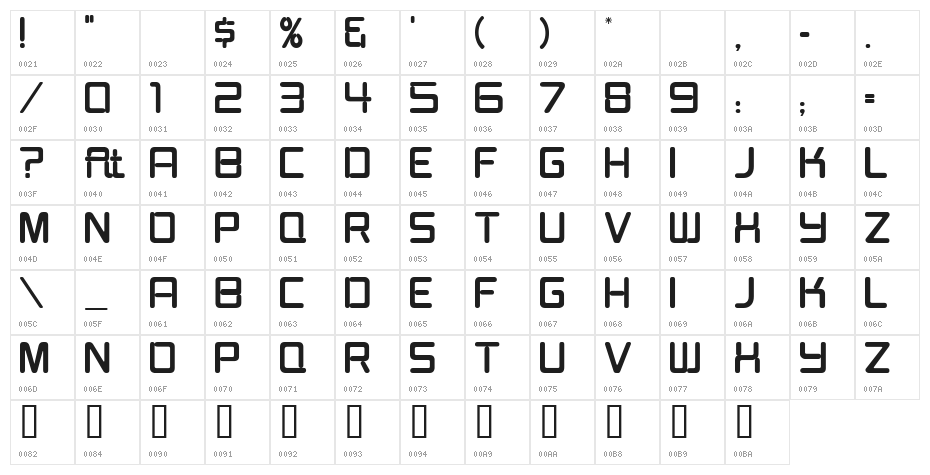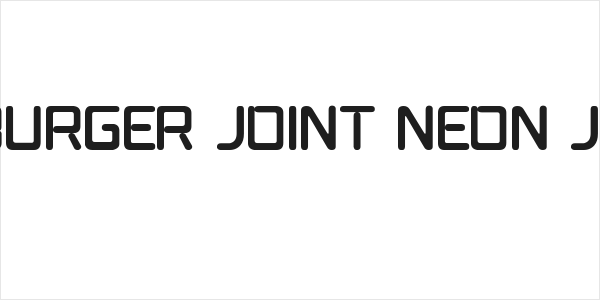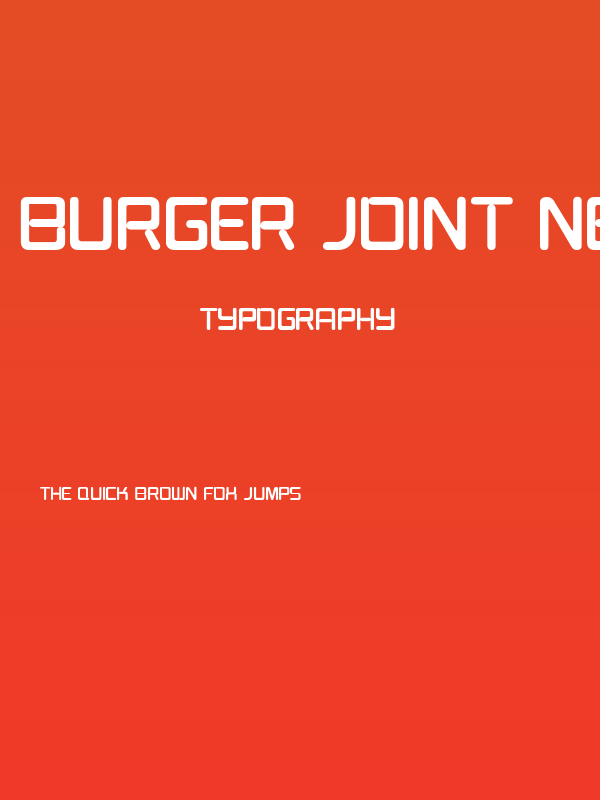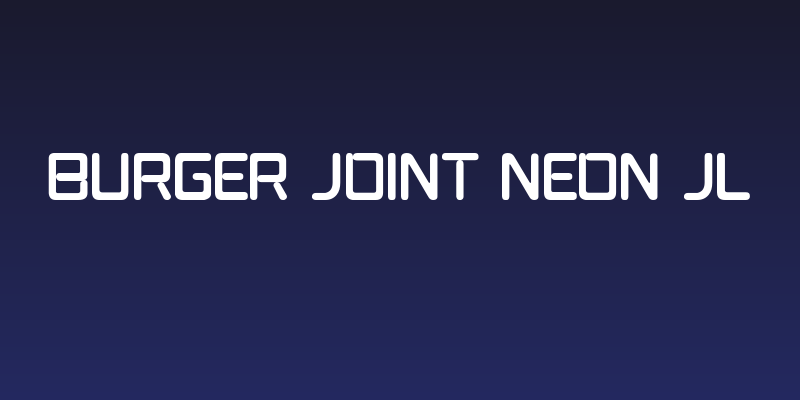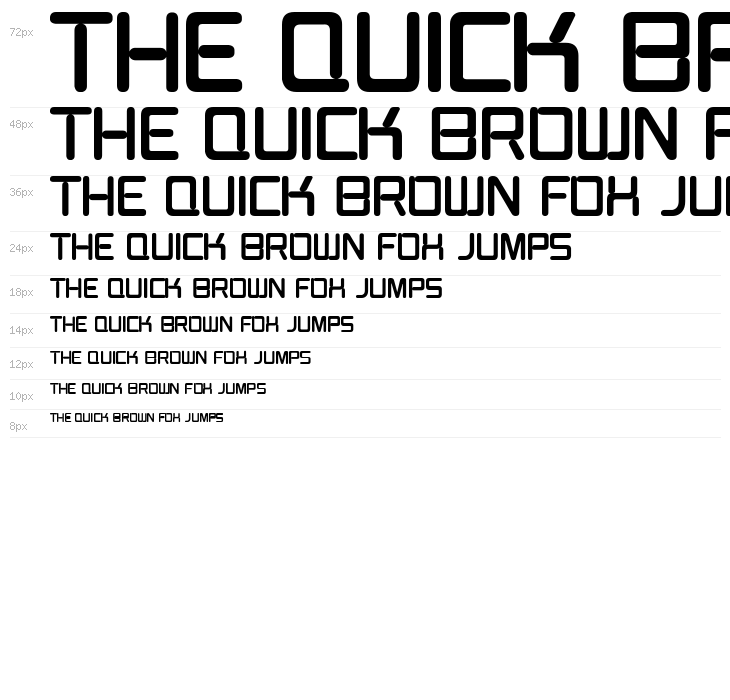
Burger Joint Neon JL Font
Burger Joint Neon JL Description
This font features a bold, rounded style reminiscent of neon signage, with a modern and playful aesthetic. The characters are evenly spaced and have a consistent stroke width, giving it a clean and uniform appearance. The rounded edges and geometric shapes contribute to its approachable and friendly look, making it ideal for eye-catching displays. The uppercase and lowercase letters maintain a cohesive design, while the numerals and special characters complement the overall style. This font is perfect for projects that require a contemporary and vibrant feel.
| Use Case | Headlines, Logos, Signage |
| Proposed Projects | Ideal for restaurant signage, branding, posters, and digital media that require a lively and modern touch. |